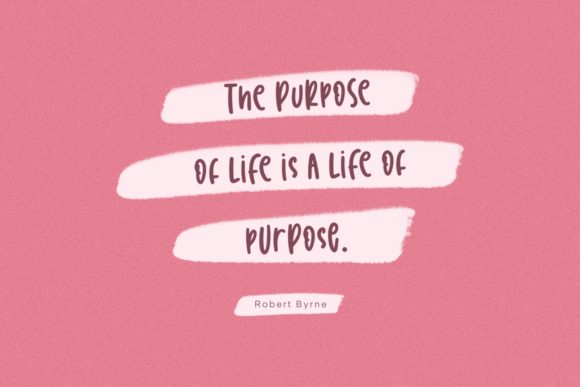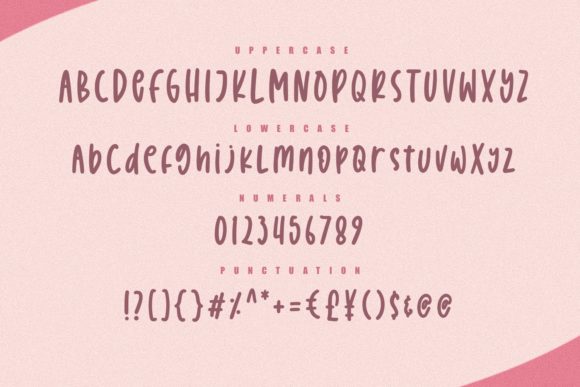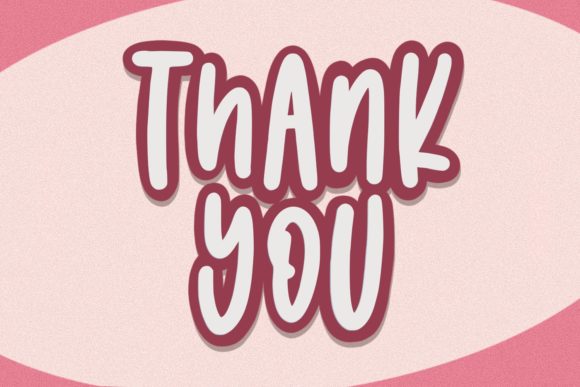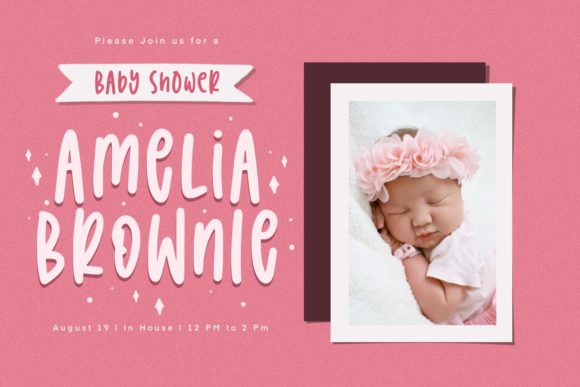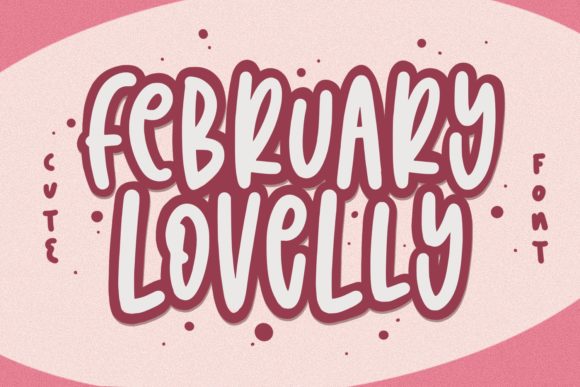
Introducing February Lovelly Font: The Perfect Addition to Your Cute and Fun Designs
Are you a designer or crafter looking for a font that can add a touch of magic to your designs? Look no further than February Lovelly Font! This beautiful display font is specifically designed for cute and fun themed designs, making it the perfect addition to your creative projects. In this article, we’ll explore the features and benefits of February Lovelly Font, and show you how to use it to take your designs to the next level.
What is February Lovelly Font?
February Lovelly Font is a stunning display font that is sure to capture the attention of your audience. Its unique and playful design makes it perfect for use in a variety of creative projects, from invitations and greeting cards to posters and social media graphics. With its beautiful and enchanting style, February Lovelly Font is sure to add a special touch to any design idea you can think of.
Features of February Lovelly Font
So, what makes February Lovelly Font so special? Here are just a few of its key features:
- Beautiful Display Font: February Lovelly Font is a stunning display font that is designed to make a statement. Its large and playful letters are perfect for use in headlines, titles, and other design elements.
- Cute and Fun Themed: This font is specifically designed for cute and fun themed designs, making it perfect for use in projects such as children’s party invitations, baby shower cards, and more.
- Enchanting Style: February Lovelly Font has a unique and enchanting style that is sure to capture the attention of your audience. Its playful and whimsical design makes it perfect for use in a variety of creative projects.
Benefits of Using February Lovelly Font
So, why should you use February Lovelly Font in your designs? Here are just a few of the benefits of using this amazing font:
- Adds a Touch of Magic: February Lovelly Font is sure to add a touch of magic to your designs. Its enchanting style and playful design make it perfect for use in projects where you want to create a sense of wonder and excitement.
- Perfect for Cute and Fun Designs: This font is specifically designed for cute and fun themed designs, making it perfect for use in projects such as children’s party invitations, baby shower cards, and more.
- Stand Out from the Crowd: February Lovelly Font is a unique and eye-catching font that is sure to help your designs stand out from the crowd. Its beautiful and enchanting style makes it perfect for use in projects where you want to make a statement.
In conclusion, February Lovelly Font is a beautiful display font that is perfect for use in cute and fun themed designs. Its enchanting style and playful design make it sure to add a touch of magic to any design idea you can think of. With its ease of use and unique features, February Lovelly Font is a must-have for any designer or crafter looking to take their designs to the next level.